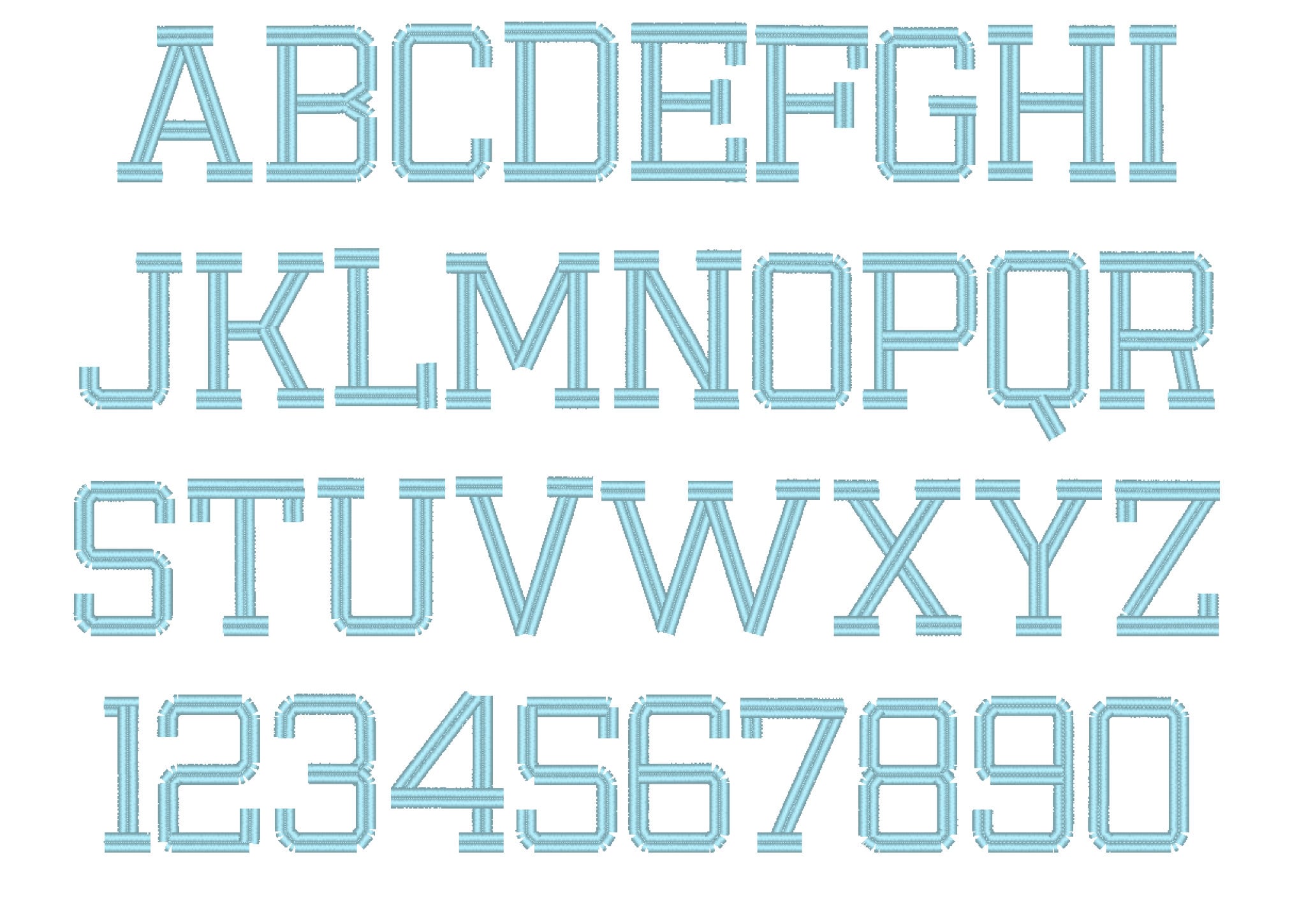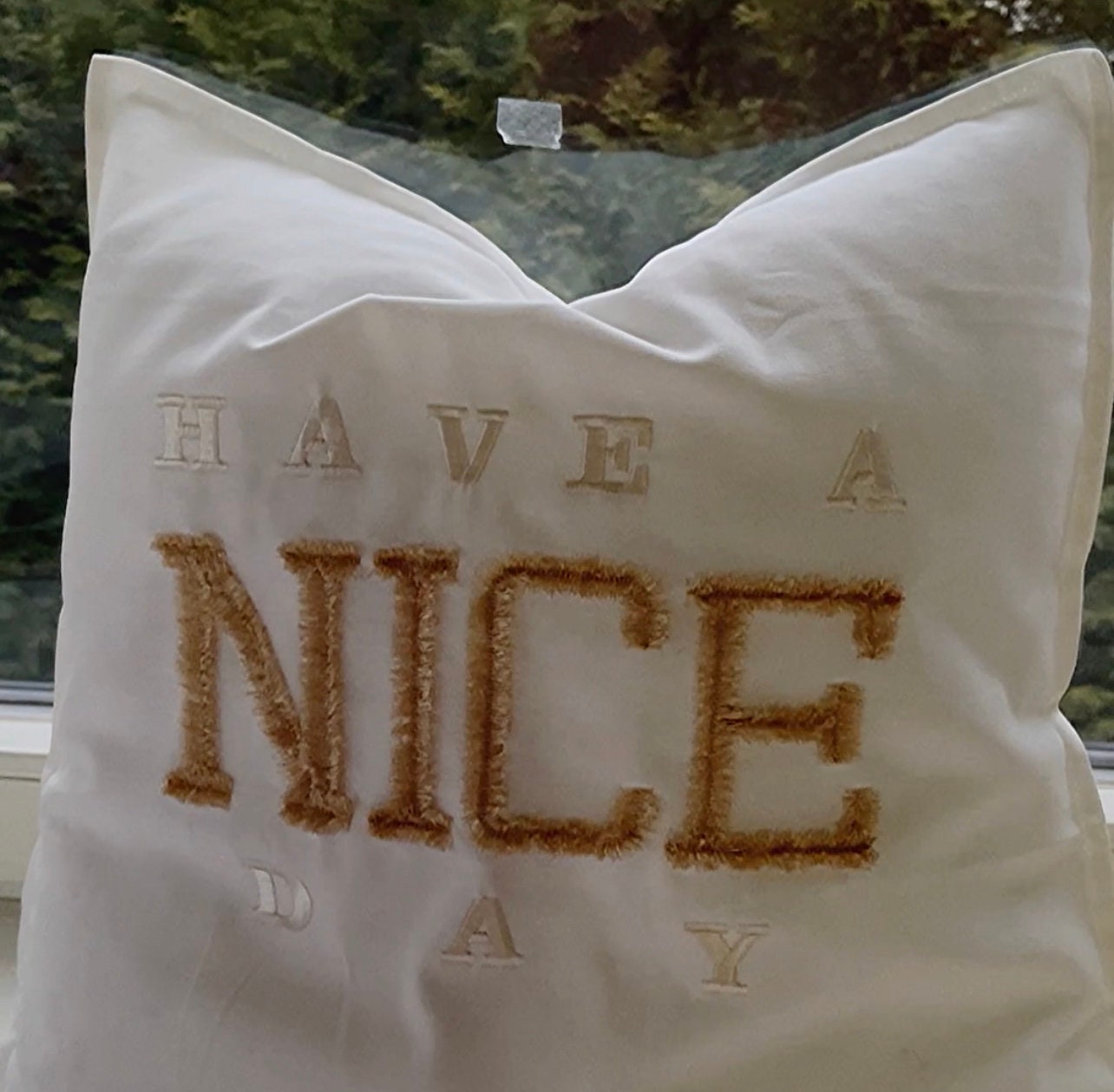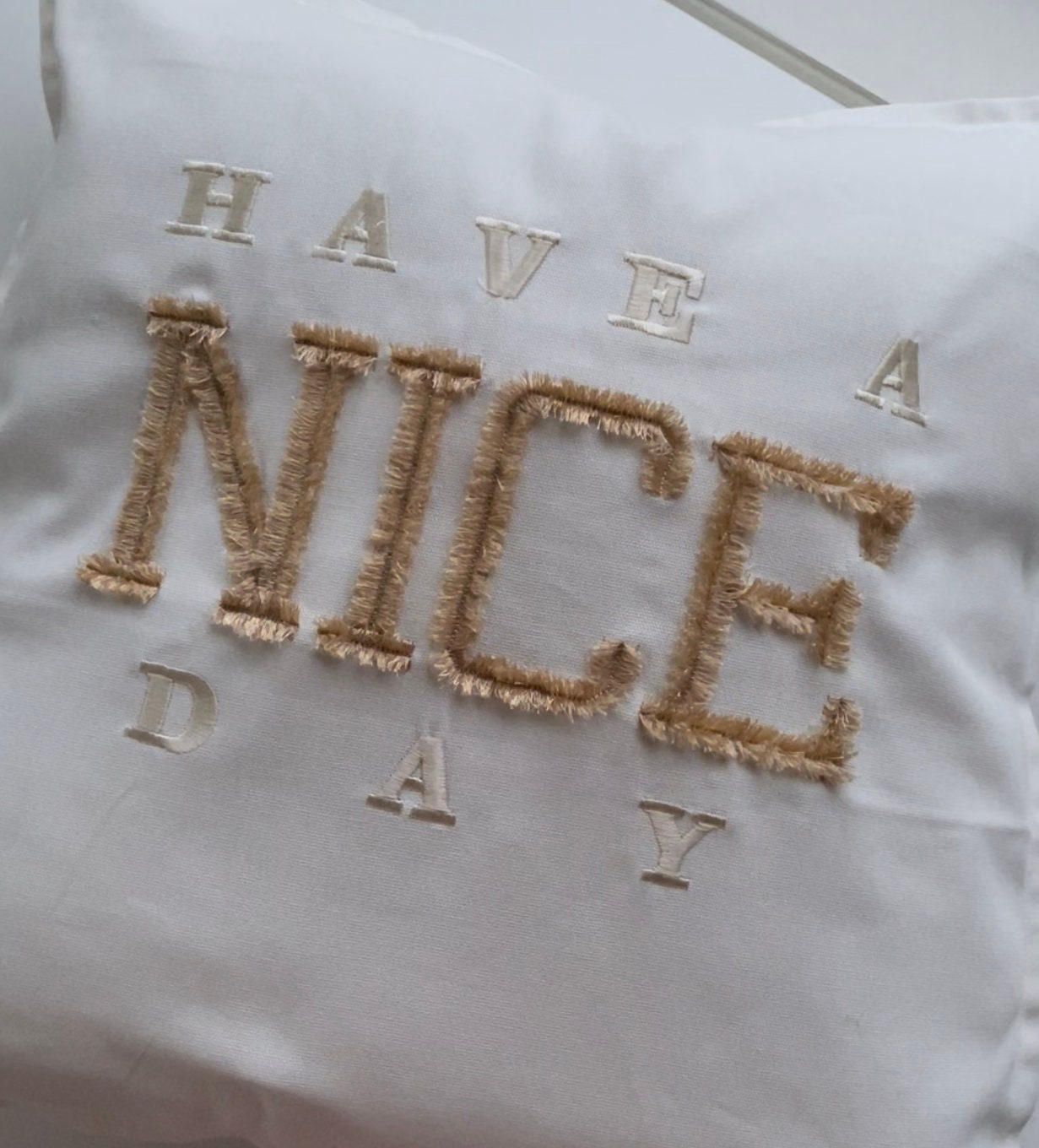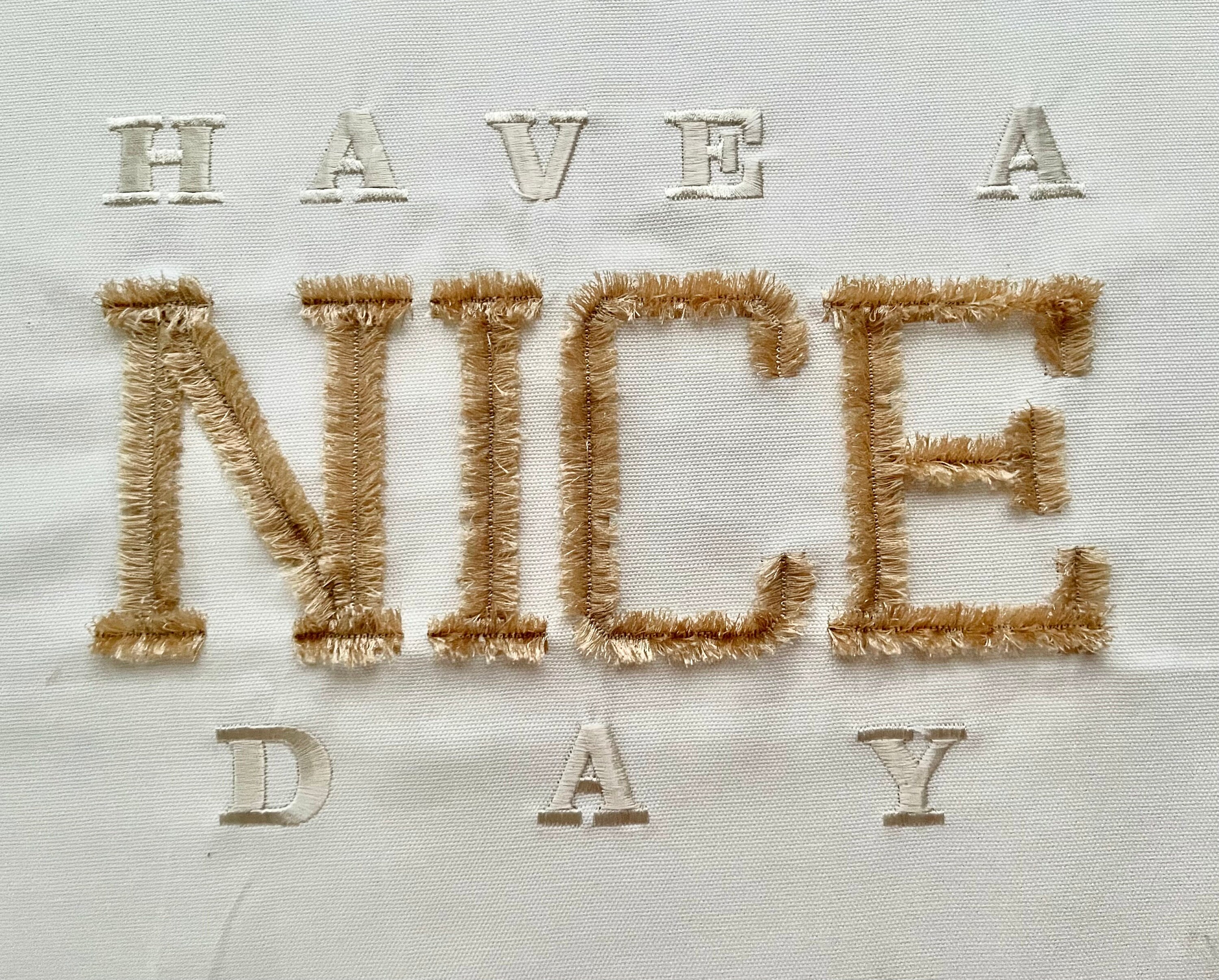
Fringed fluff faux chenille Varsity Font Athletic Sport block alphabet letters machine embroidery designs sizes 2.2 thru 4.4 in + mini font, BX included
Uppercase letters and numbers
Mini font sizes